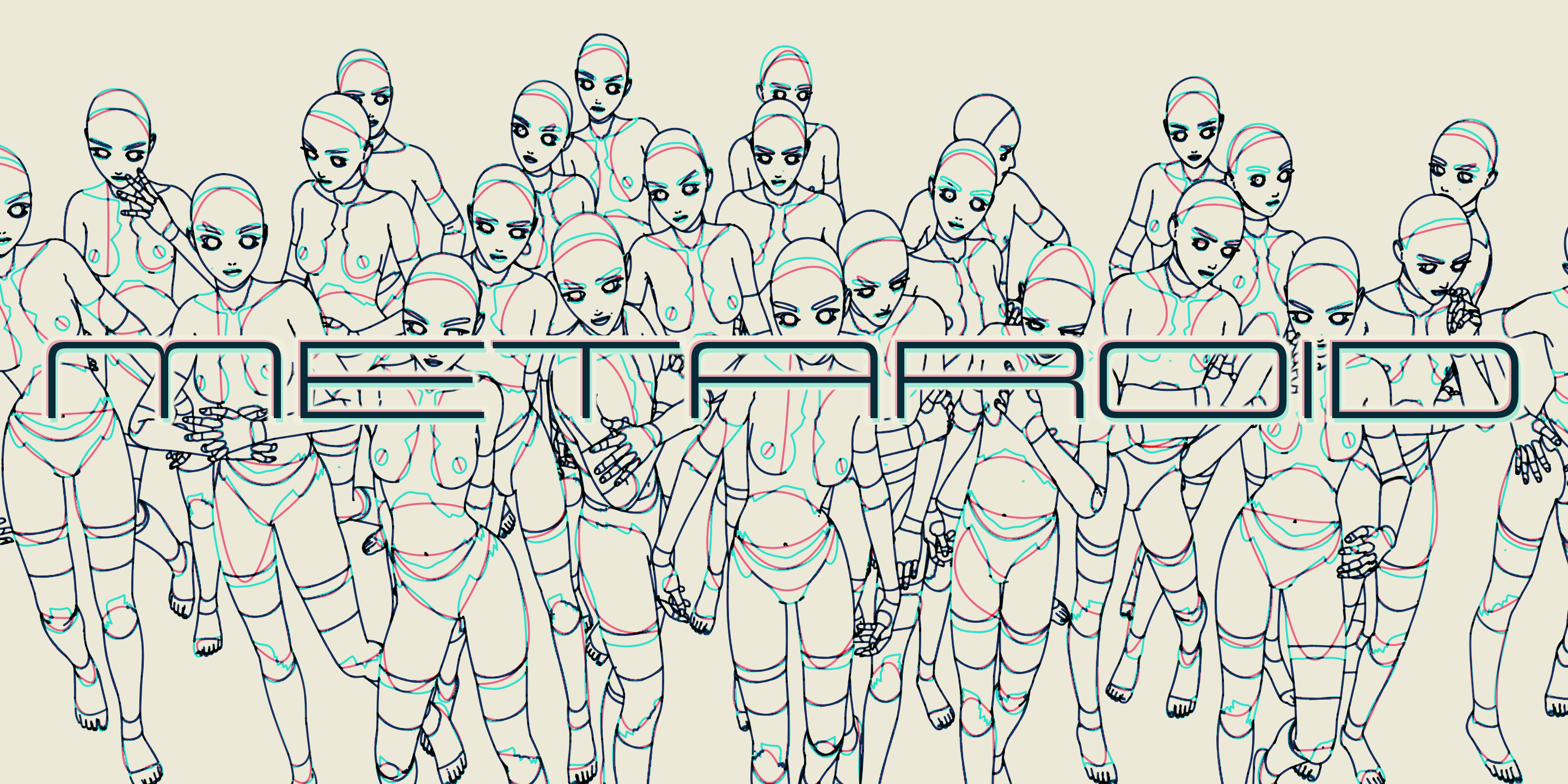
Design System E 500I
Design System E is a display sans font family. This typeface has ten styles and was published by Dharma Type.
Design System A font family example.
Design System is a versatile type system consisting of 70 font styles (5 weights × 7 widths × 2 slopes).
Ranging from 70s-style simple square sans to ultra-wide designs, it’s ideal for titles, logos, and text.
The fonts feature a clean, minimal form that adapts easily to any creative context, without restricting your design direction.
What’s more, all styles are harmoniously crafted, ensuring they can be mixed and matched seamlessly without visual dissonance.